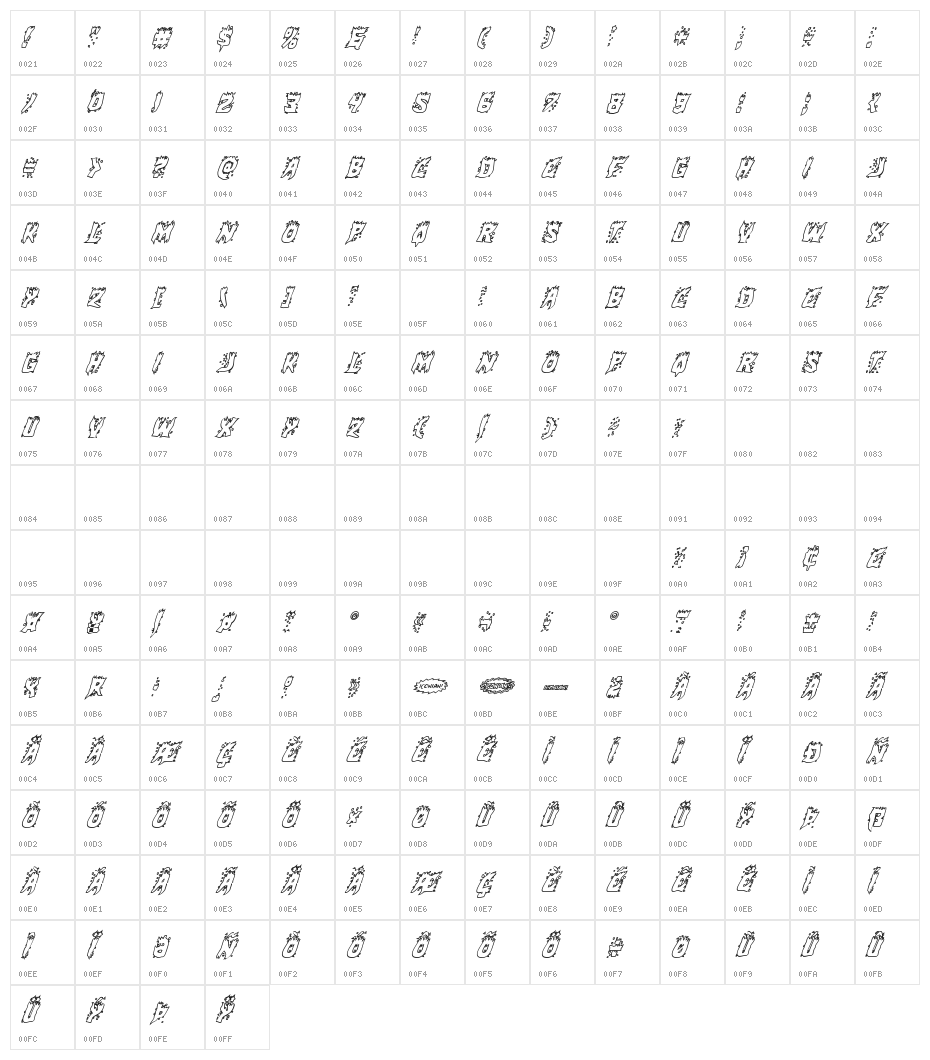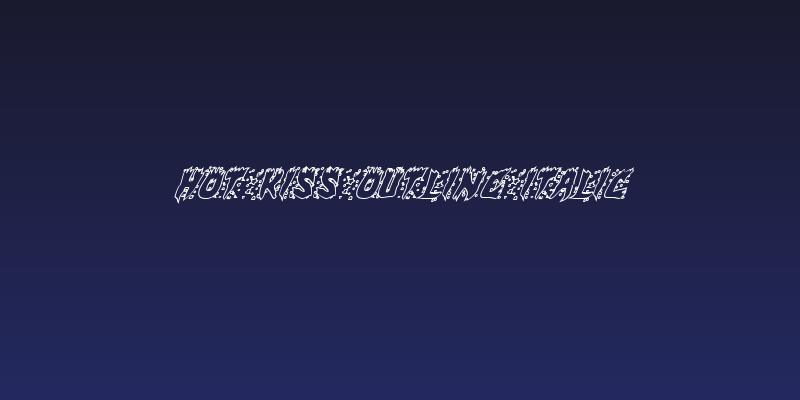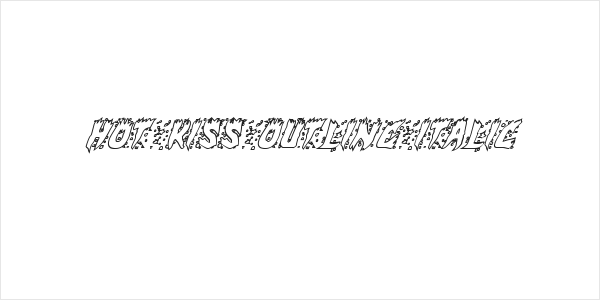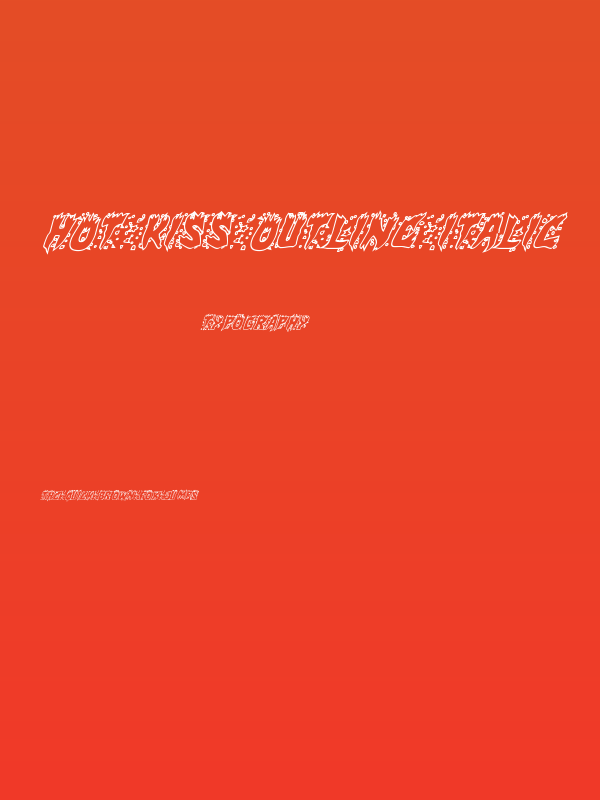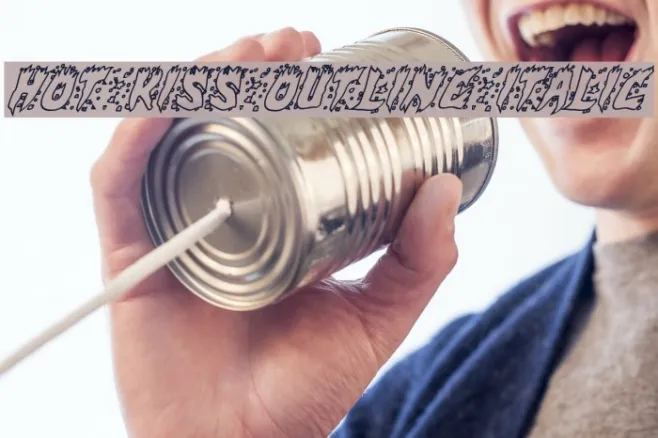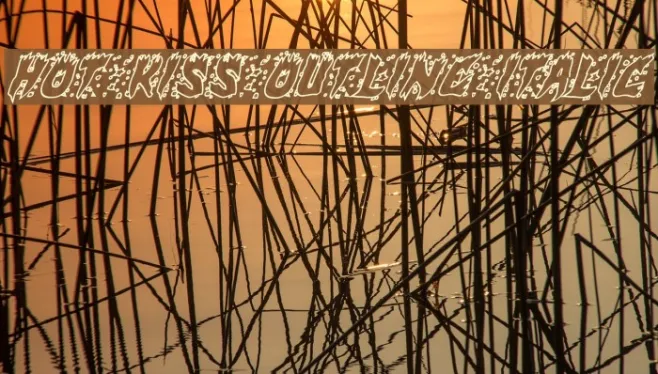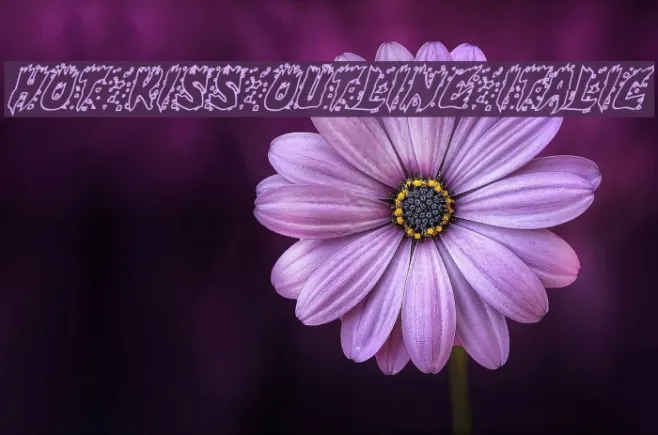
Hot Kiss Outline Italic Font
Hot Kiss Outline Italic Description
This font features a bold, dynamic outline style with an italic slant, giving it a sense of movement and energy. The characters are designed with a playful, almost cartoonish flair, incorporating irregular edges and decorative elements that resemble splashes or drips. This unique design adds a lively and whimsical touch, making it stand out in any context. The uppercase and lowercase letters maintain a consistent style, while the numbers and special characters follow the same playful theme. The overall appearance is eye-catching and suitable for creative projects that require a bold statement.
| Proposed Projects | Ideal for comic book titles, children's book covers, playful branding, and event posters. |